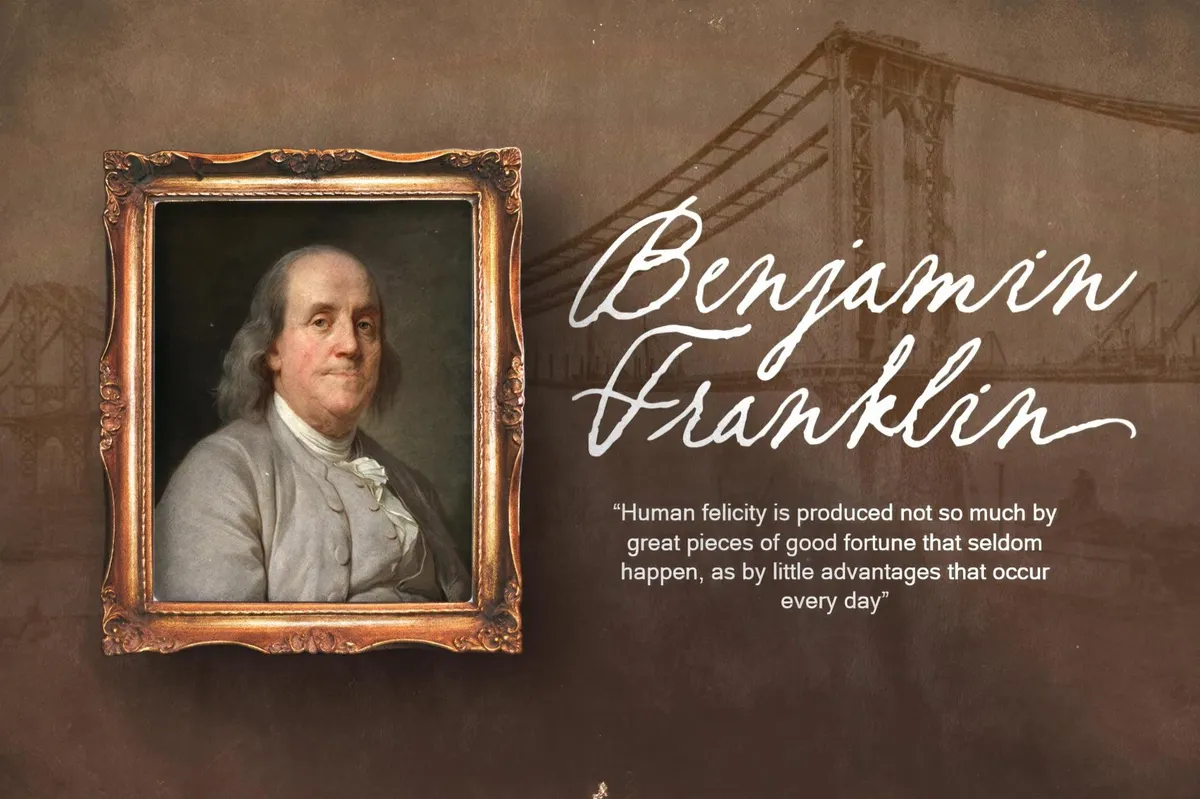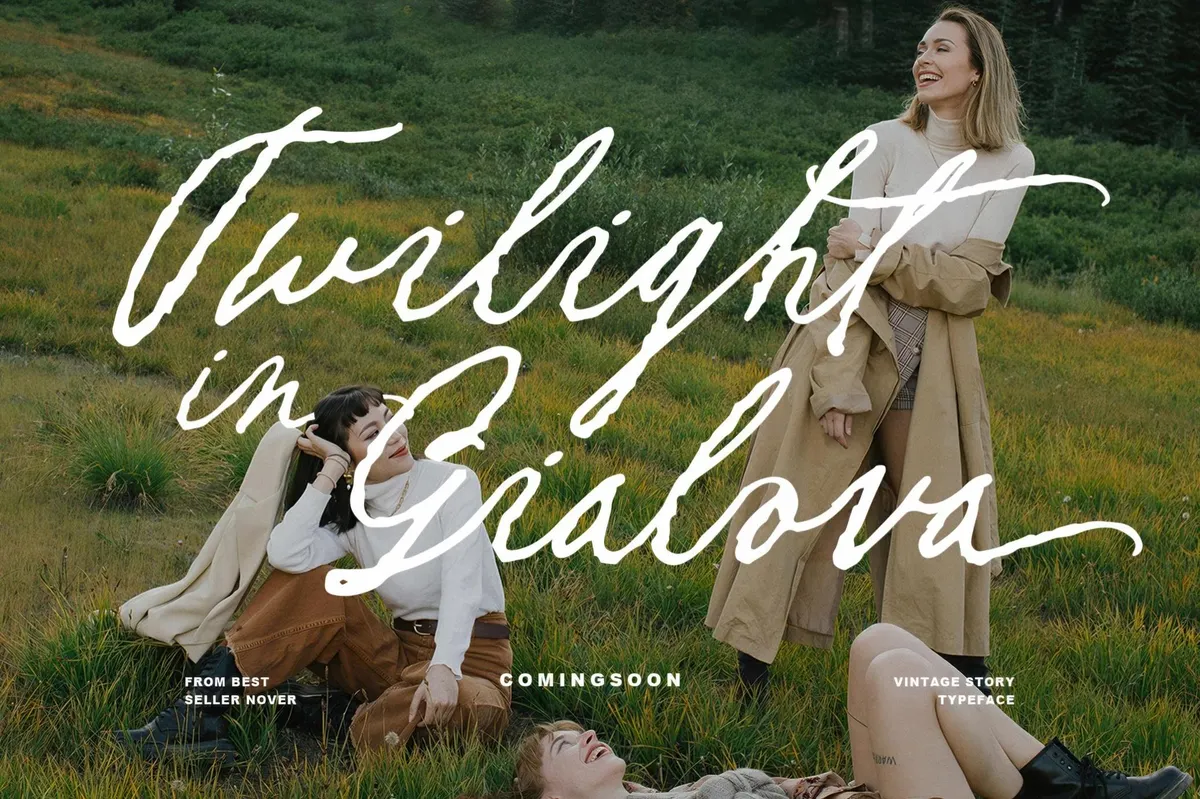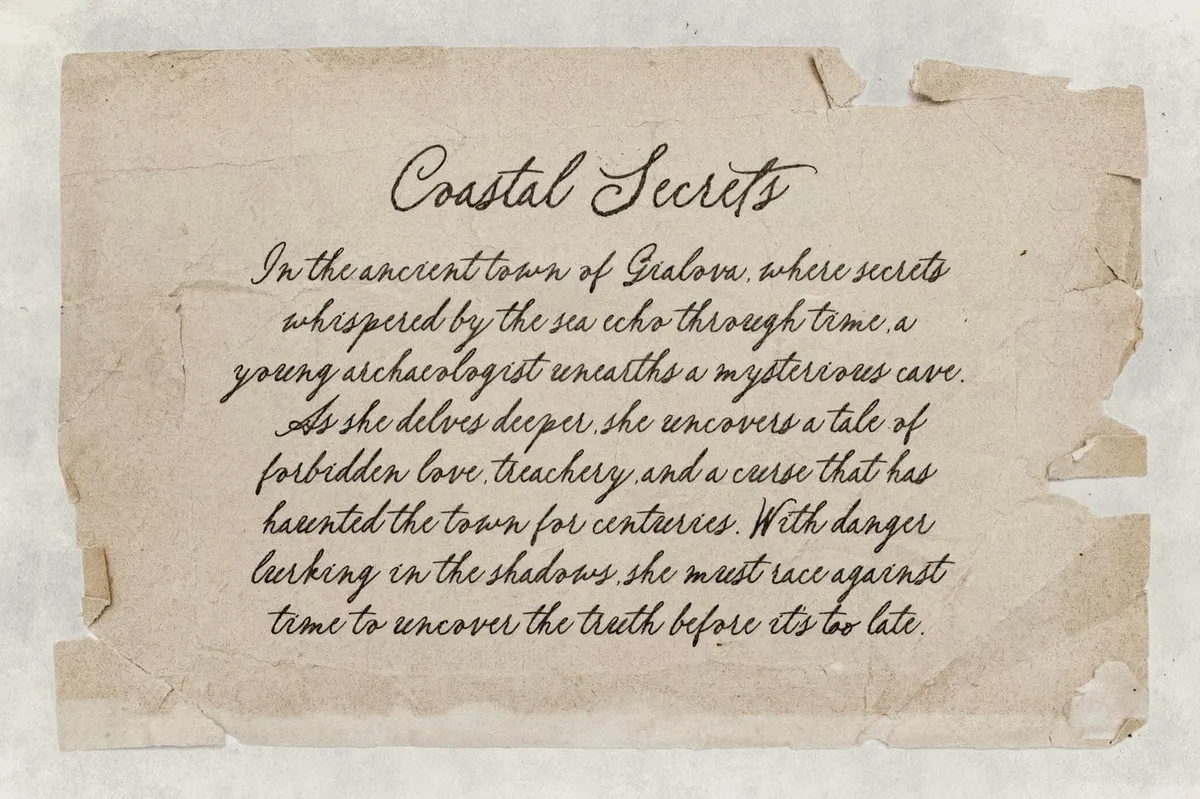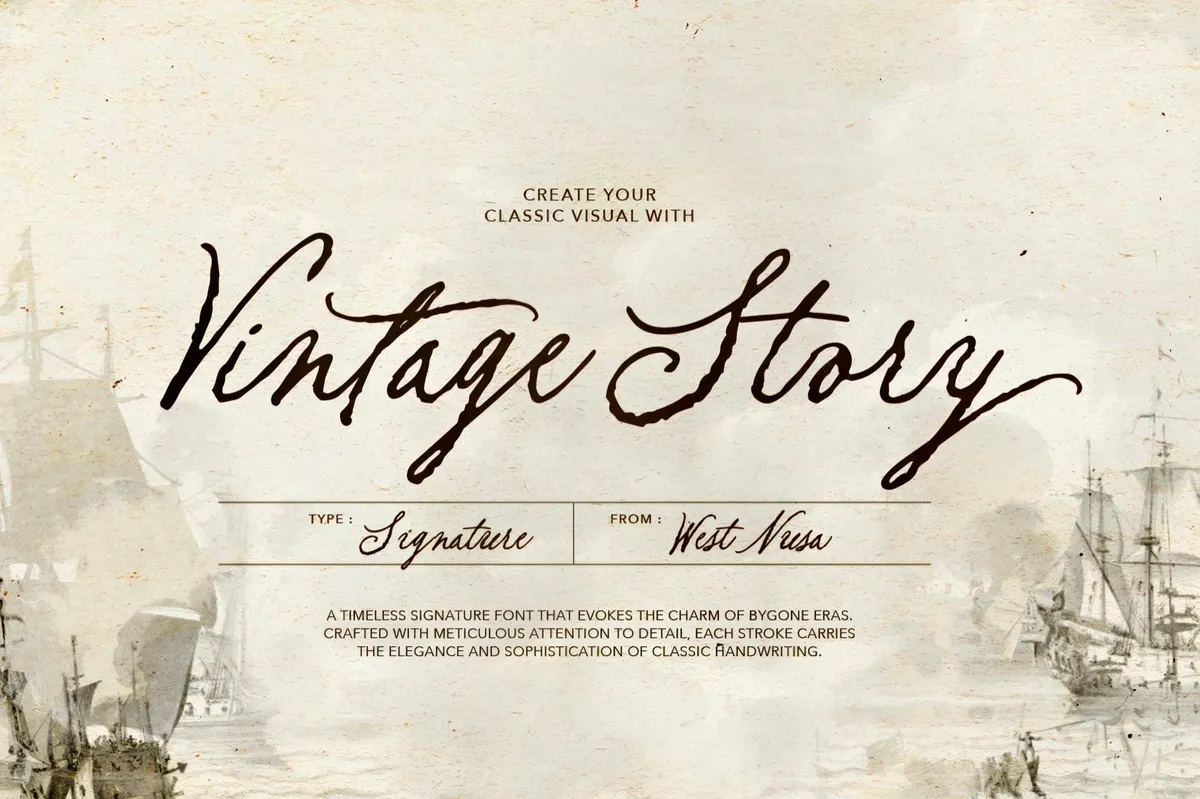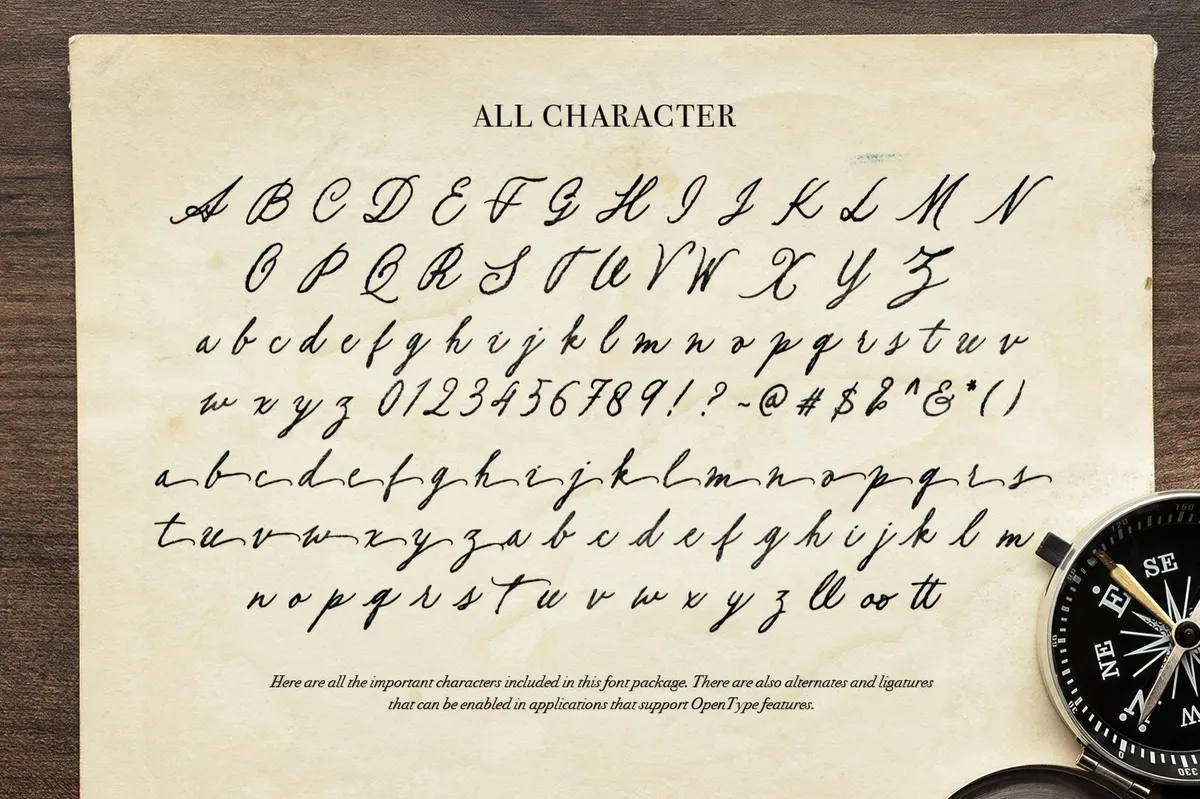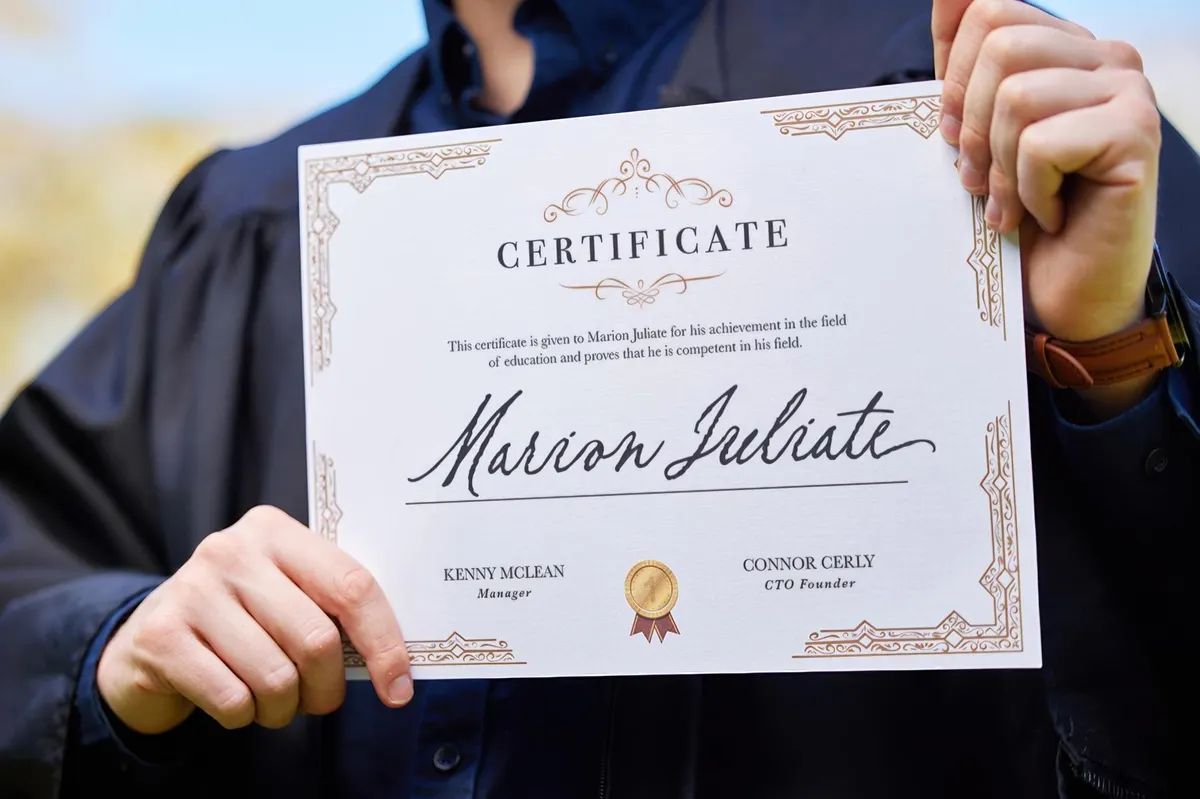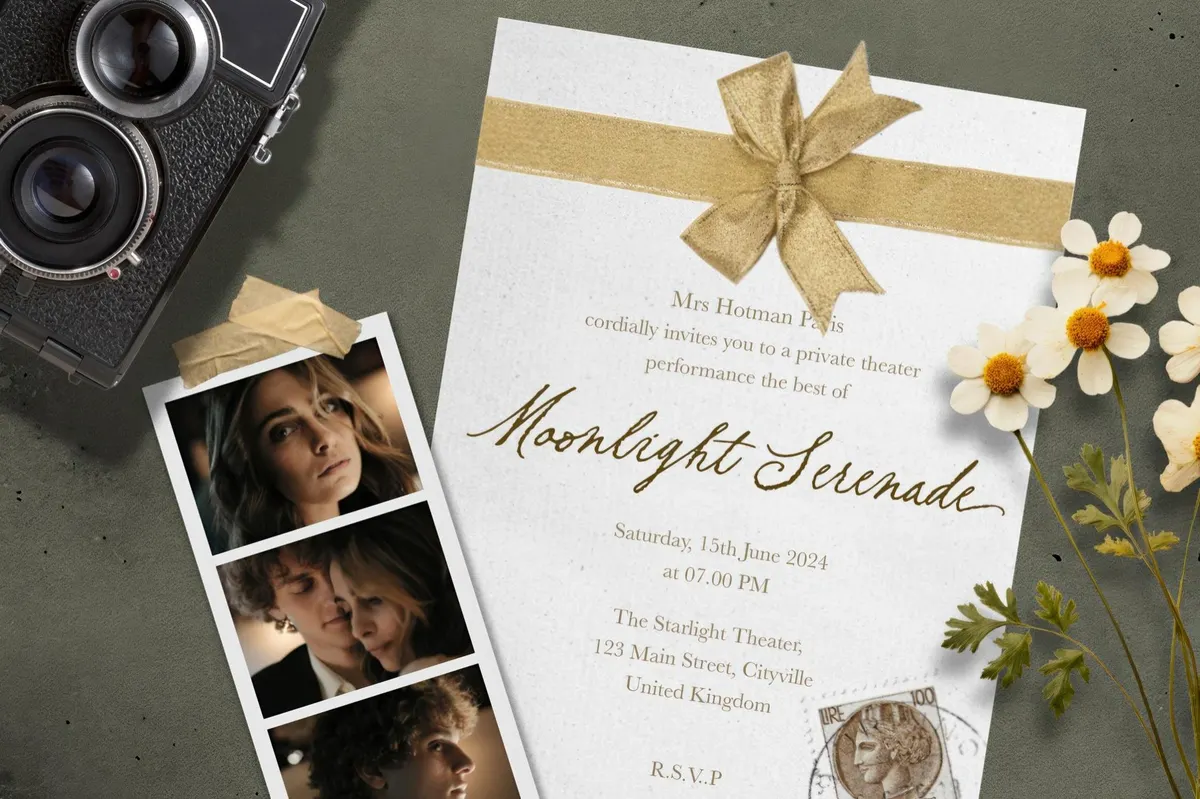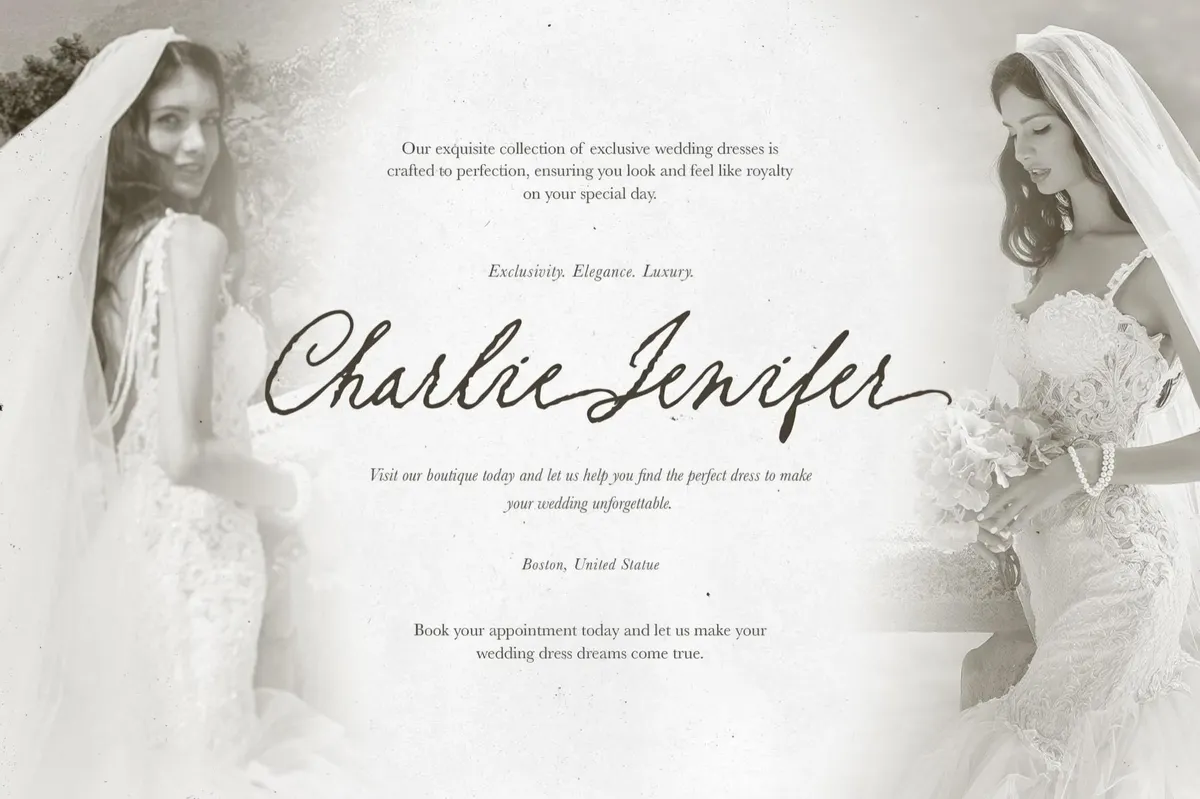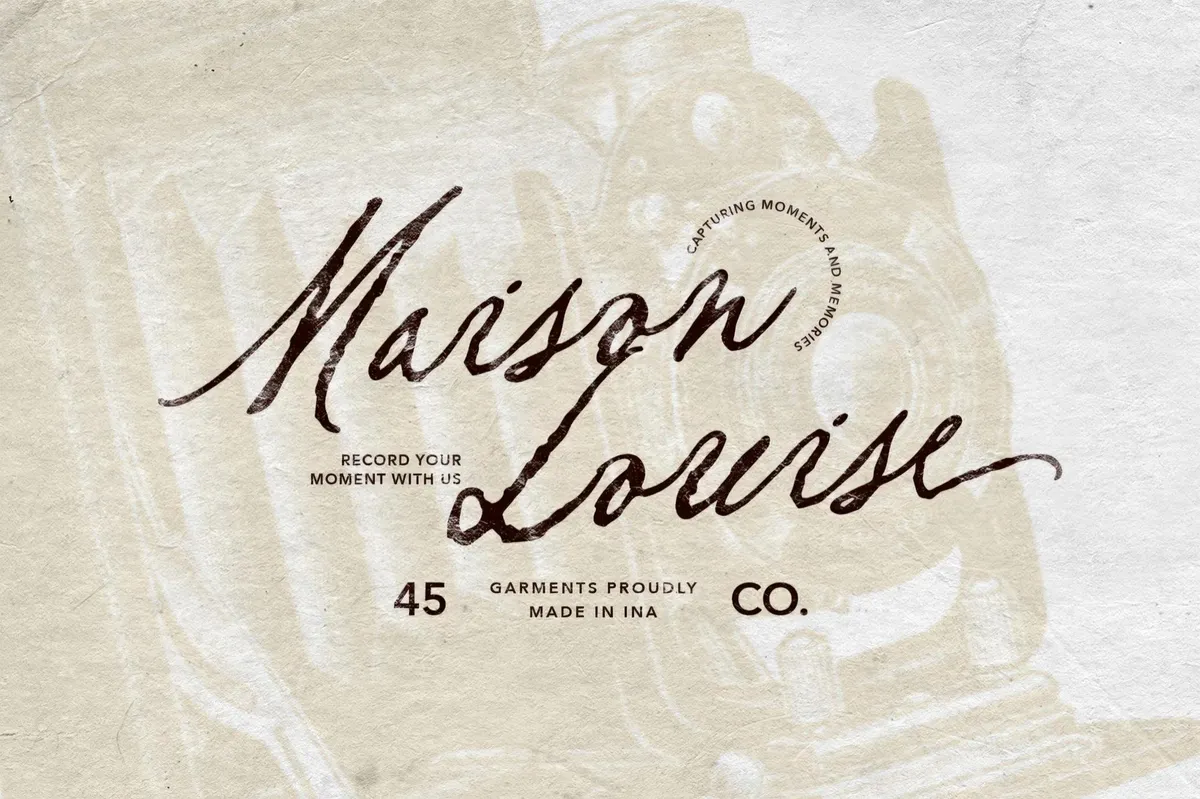
Vintage Story — Old Signature Script
Vintage Story captures the essence of an era when every word was written with intention. This signature script mirrors the elegance of old-world manuscripts — so each letter is full of character and uniqueness. Its flowing strokes and organic imperfections recall timeworn love letters, ship logs, and storied documents from the past. It will make a perfect fit for wedding invitations, branding, and poetic compositions, as this font carries a sense of history, artistry, and quiet sophistication.
The set includes upper case and lower case letters, punctuation marks, and numerals and provides multilingual support. Ligatures and alternates weave through the characters, giving your words an effortlessly natural rhythm — just like a quill dancing across a faded page.